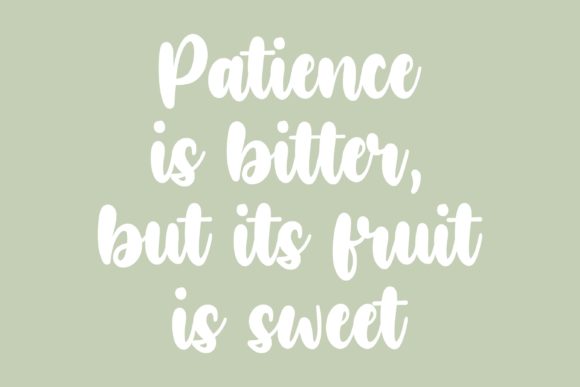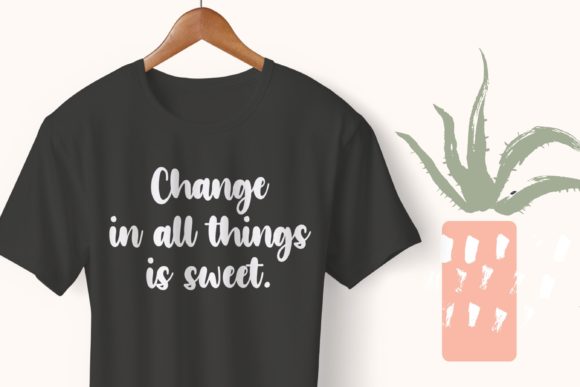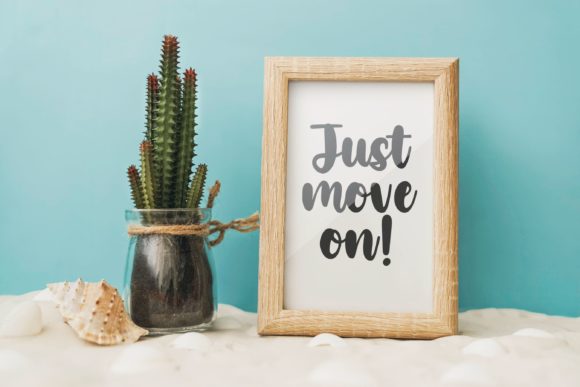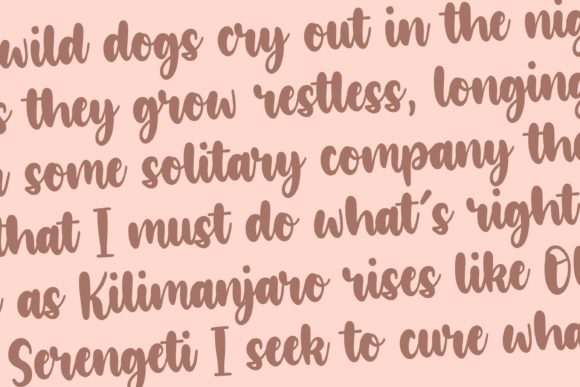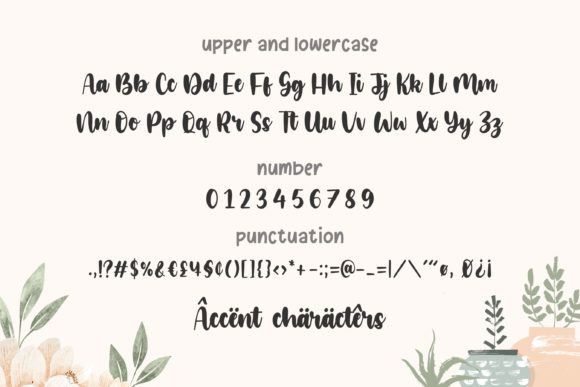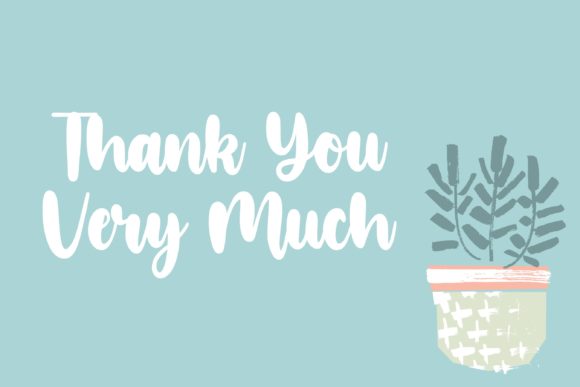
Glamori Font
About Glamori Font
Glamori is a hand-brushed calligraphy font. It feels bold and charming. This handwritten font is the perfect fit for all of your logos, branding, social media, and crafty DIY projects.